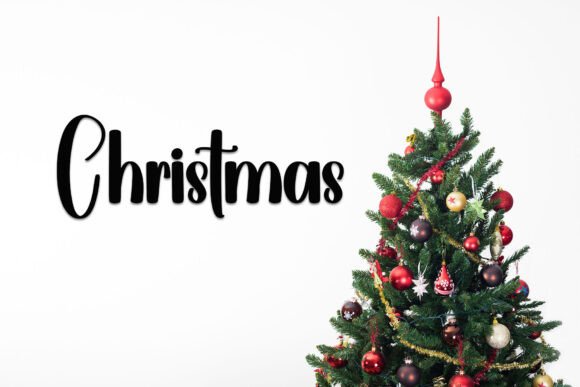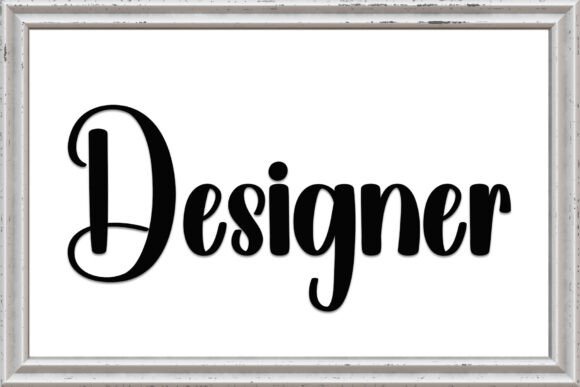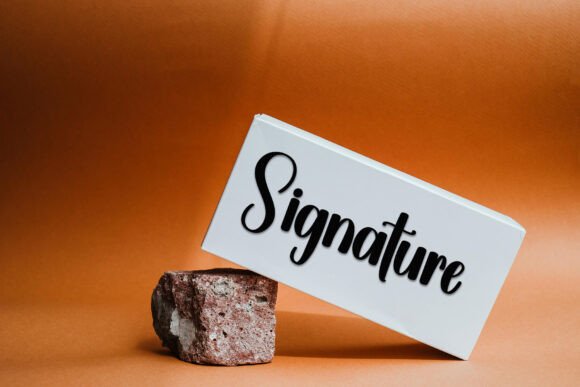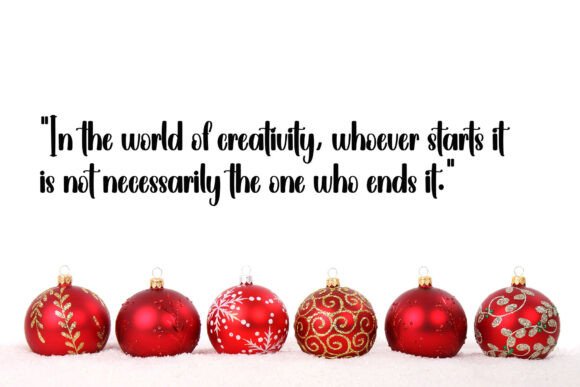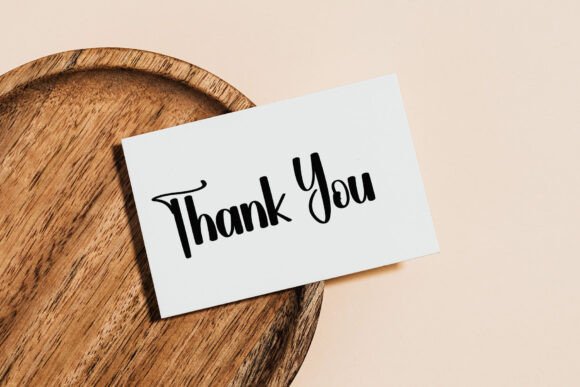
Bunny Font: The Perfect Addition to Your Design Arsenal
Are you on the hunt for a font that exudes elegance and sophistication? Look no further than the Bunny Font! This stunning handwritten font is sure to capture your heart with its unique and timeless style. In this article, we’ll dive into the world of Bunny Font and explore its features, uses, and benefits for designers and crafters.
What is Bunny Font?
Bunny Font is a beautiful, handwritten font that boasts an elegant touch. Its distinct and classic style makes it perfect for a wide range of projects, from branding and advertising to crafting and DIY endeavors. With its incredibly legible and fluid script, Bunny Font is sure to add a touch of sophistication to any design.
Key Features of Bunny Font
- Elegant and Refined: Bunny Font features an elegant and refined script that adds a touch of sophistication to any design.
- Handwritten Style: This font boasts a beautiful, handwritten style that’s perfect for creating unique and personalized designs.
- Distinct and Timeless: Bunny Font’s classic style ensures that your designs will stand the test of time and remain stylish for years to come.
- Legible and Fluid: The font’s fluid script and high legibility make it perfect for use in a wide range of design applications.
Uses for Bunny Font
Bunny Font is an incredibly versatile font that can be used in a wide range of design applications. Here are just a few ideas to get you started:
- Branding and Advertising: Use Bunny Font to create elegant and sophisticated brand identities, logos, and advertising materials.
- Crafting and DIY: Add a touch of elegance to your crafting and DIY projects, such as handmade cards, gift tags, and scrapbooking pages.
- Wedding and Event Design: Use Bunny Font to create beautiful wedding invitations, party decorations, and other event materials.
- Digital Design: Bunny Font is perfect for use in digital design applications, such as social media graphics, blog headers, and website design.
Benefits of Using Bunny Font
So why choose Bunny Font for your design projects? Here are just a few benefits of using this stunning font:
- Unique and Memorable: Bunny Font’s distinct style ensures that your designs will stand out from the crowd and be remembered.
- Elegant and Sophisticated: This font adds a touch of elegance and sophistication to any design, making it perfect for high-end brands and luxury products.
- Easy to Read: Bunny Font’s high legibility ensures that your designs will be easy to read, even at small sizes.
- Versatile: This font can be used in a wide range of design applications, making it a valuable addition to any design arsenal.
Tips for Using Bunny Font
Here are a few tips for getting the most out of Bunny Font:
- Pair with Other Fonts: Bunny Font pairs well with other fonts, such as sans-serif fonts and script fonts. Experiment with different pairings to find the perfect combination for your design.
- Adjust Font Size: Bunny Font looks great at a range of font sizes, from small to large. Experiment with different font sizes to find the perfect fit for your design.
- Add Decorations: Consider adding decorations, such as flourishes or swashes, to give your designs an extra touch of elegance.
In conclusion, Bunny Font is a stunning handwritten font that boasts an elegant and refined script. Its distinct and timeless style makes it perfect for a wide range of design applications, from branding and advertising to crafting and DIY endeavors. With its high legibility and versatility, Bunny Font is sure to become a valuable addition to any design arsenal.